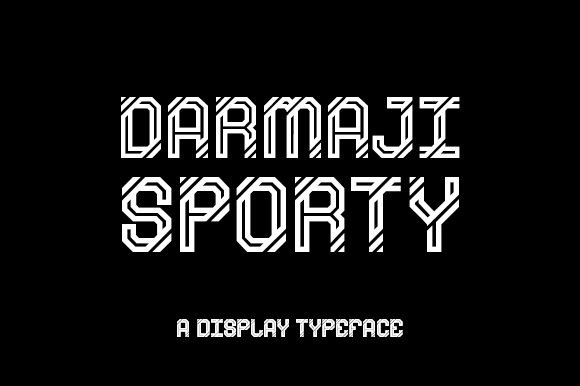
Give Your Designs a Bold Twist with the Darmaji Sporty Font
Have you ever been working on a design project, pouring your heart and soul into it, only to feel like something’s missing? Maybe it’s the perfect font to bring it all together. That’s where the Darmaji Sporty Font comes in – a bold and chunky lettered display font that celebrates abstract shapes in all their eclectic beauty.
This versatile font is perfect for adding a touch of edginess to your designs, from posters and flyers to digital graphics and social media content. Its unique style makes it a valuable addition to any designer’s toolkit, allowing you to create eye-catching visuals that stand out from the crowd. Whether you’re a seasoned pro or just starting out, the Darmaji Sporty Font is sure to inspire your creativity and help you achieve your design goals.
- Unique Characteristics: The Darmaji Sporty Font features a unique blend of sporty and modern elements, making it perfect for designs that require a bold and energetic feel.
Darmaji Sporty Font Review
First off, let me say that I love the playful vibe of Darmaji Sporty Font. ✨ The font has a fun, energetic feel to it that’s perfect for sports, fitness, and outdoor brands. It’s great for creating eye-catching headings and titles that stand out.
The font’s unique design elements, such as the bold lines and geometric shapes, work well together to create a sense of movement and dynamism. ✨ The font is also highly legible, making it easy to read even at smaller sizes.
However, there are some limitations to consider. ⚠️ The font can feel a bit over-the-top at times, which may not be suitable for every brand or design project. Additionally, the font’s bold lines can make it difficult to combine with other fonts or design elements.
Here are some specific pros and cons:
- ✨ Fun and energetic vibe
- ✨ Highly legible
- ⚠️ Can feel over-the-top at times
- ⚠️ Difficult to combine with other fonts
Overall, I think Darmaji Sporty Font is a great choice for brands that want to make a bold statement. However, it may not be the best fit for more subtle or minimalist designs.